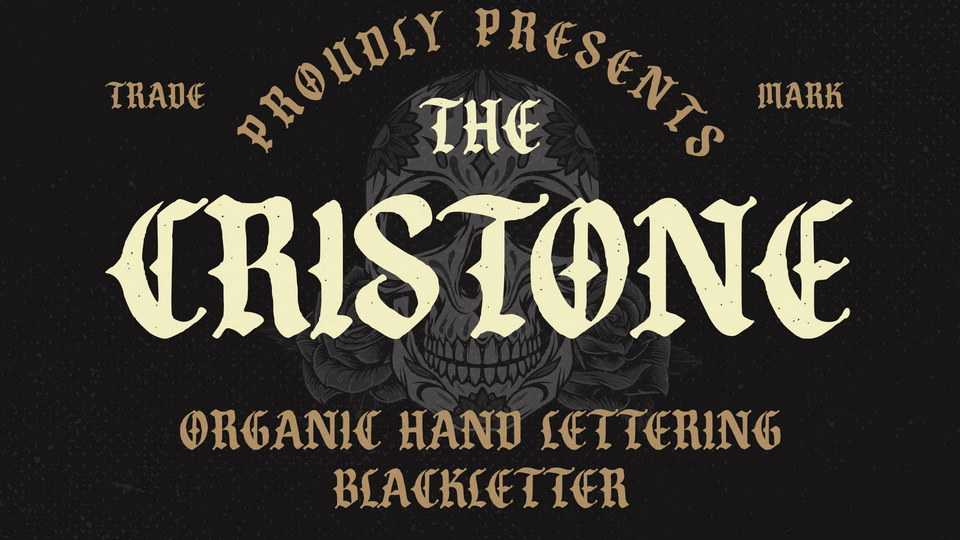
Download Cristone font, a blackletter typeface inspired by original hand lettering. Cristone is perfect for vintage labels, t-shirt design, tattoo, craft, quote sign, logotype and etc.
Designer: Blankids Studio